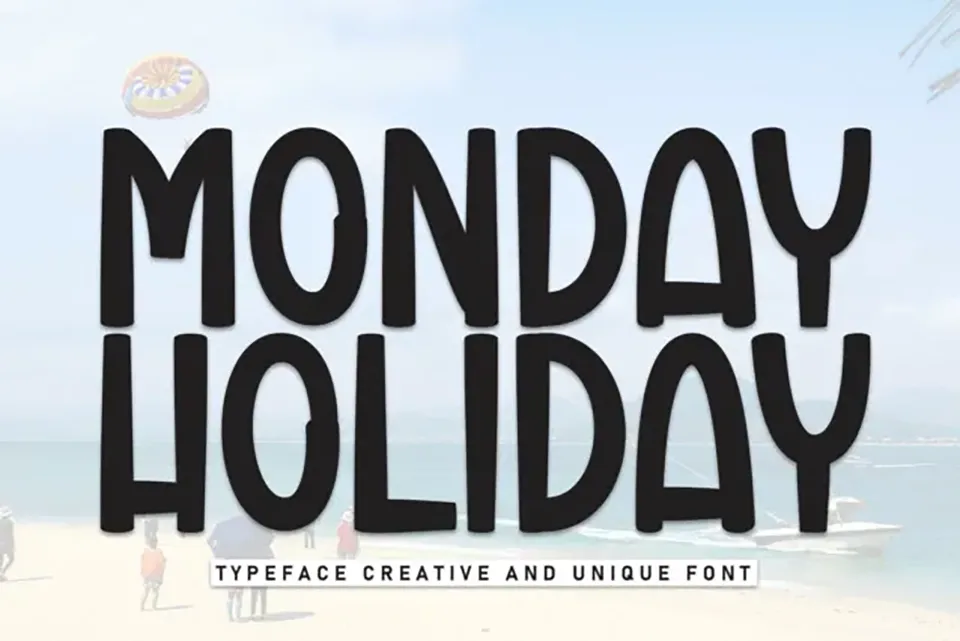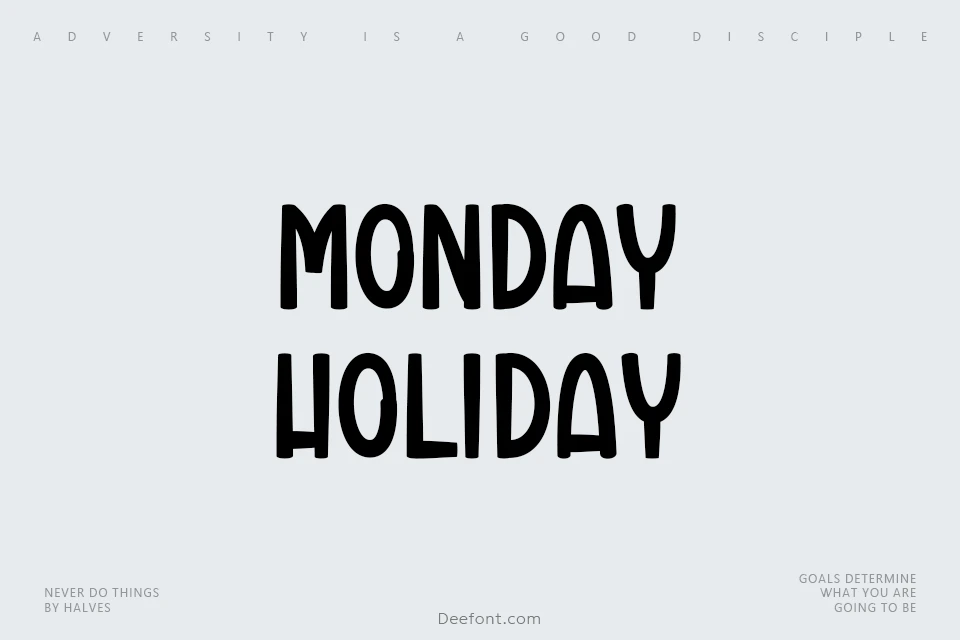
Monday Holiday Display Font
Monday Holiday Display Font is a playful and creative typeface designed to bring a sense of fun and energy to any project. Its bold, hand-drawn letterforms feature unique curves and quirky shapes, making it perfect for eye-catching headlines, posters, and branding materials. The font’s casual and friendly style captures a relaxed, holiday-inspired vibe, ideal for designs that aim to stand out and convey a cheerful mood. Monday Holiday Display Font works well for both digital and print applications, offering versatility and personality. It’s an excellent choice for anyone looking to add a distinctive, lively touch to their creative work.